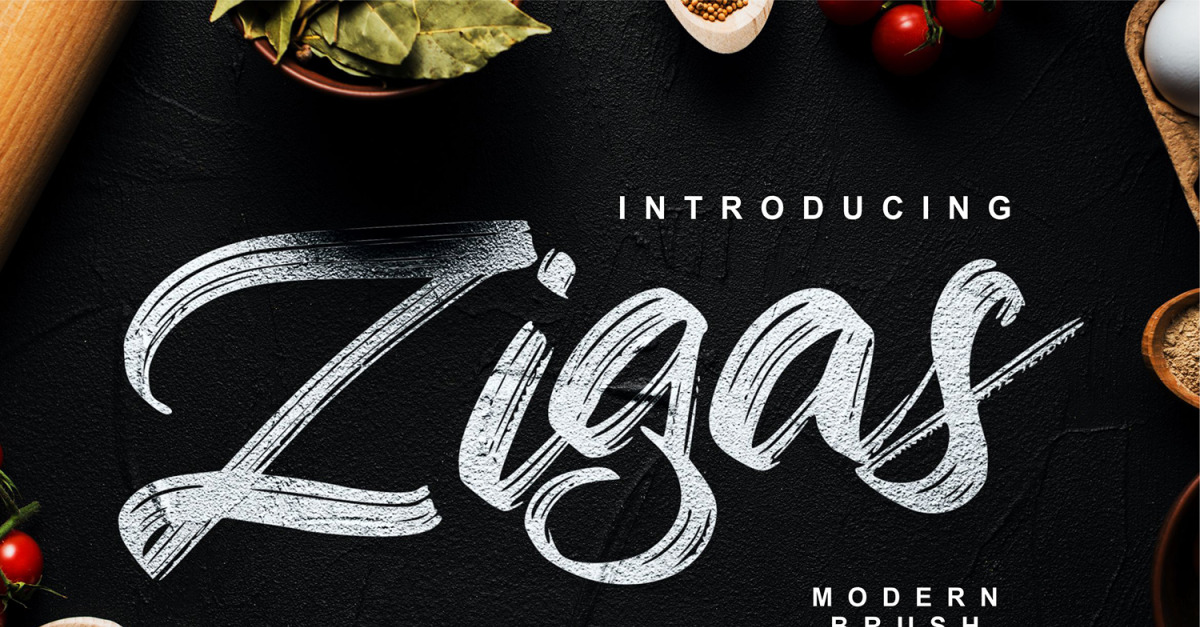
Zigas | Modern Brush Font
**Zigas | Modern Brush Font** with a calligraphy style, So beautiful on invitation like greeting cards, branding materials, business cards, quotes, posters, and more!